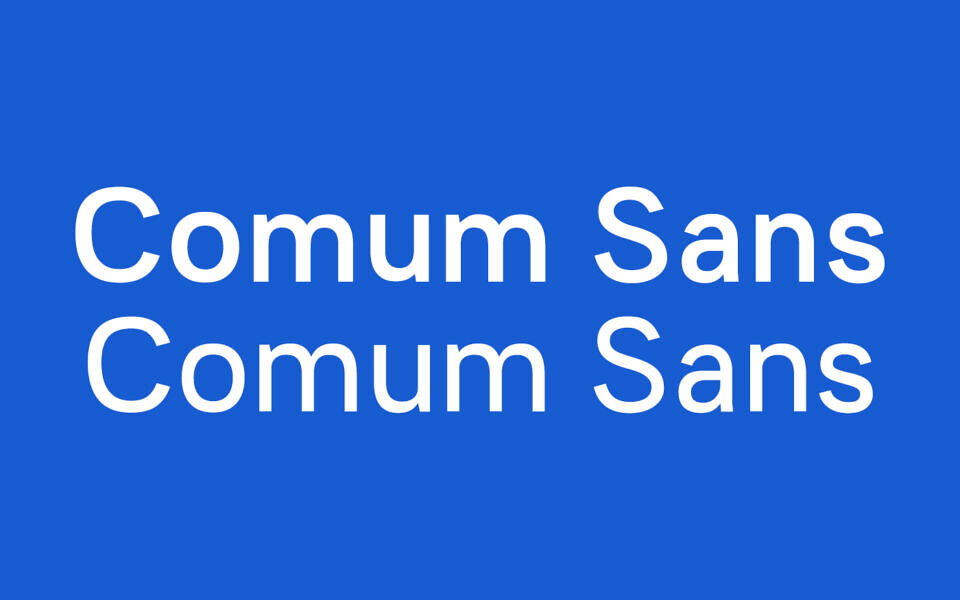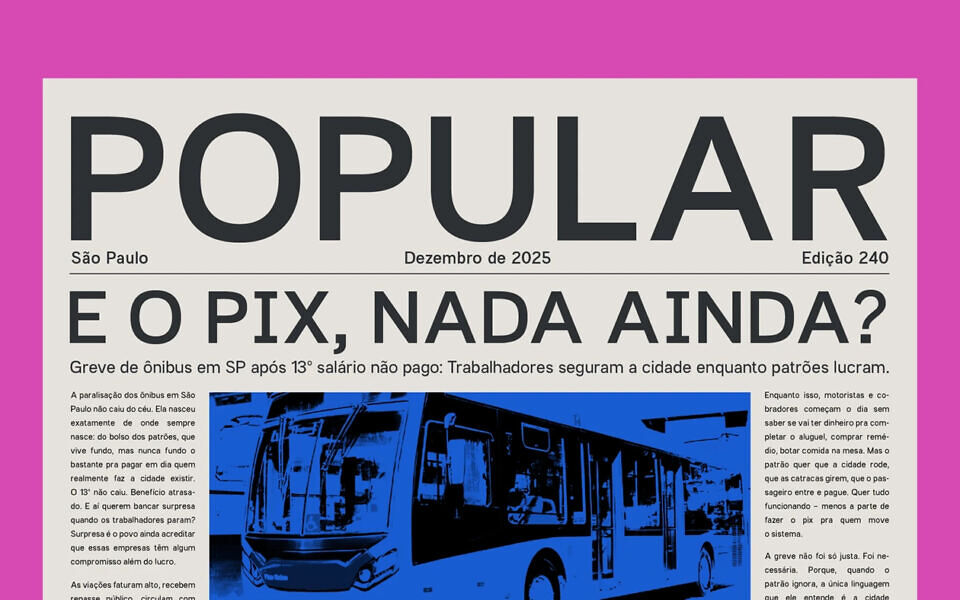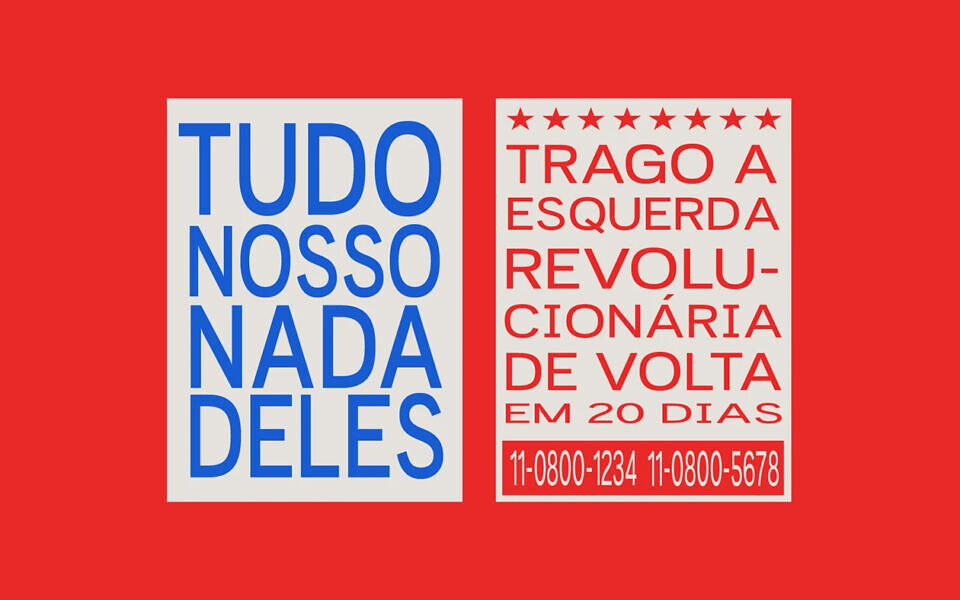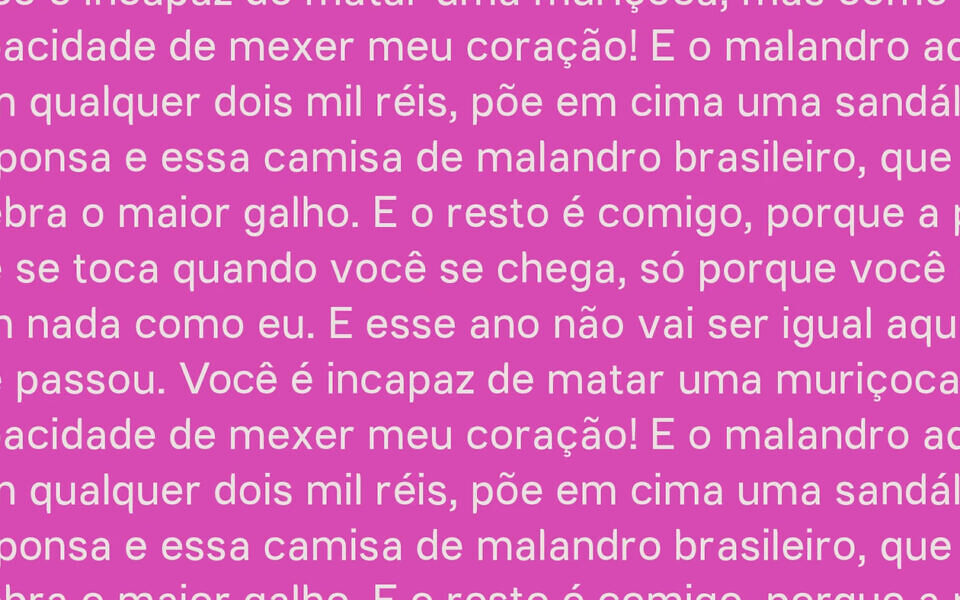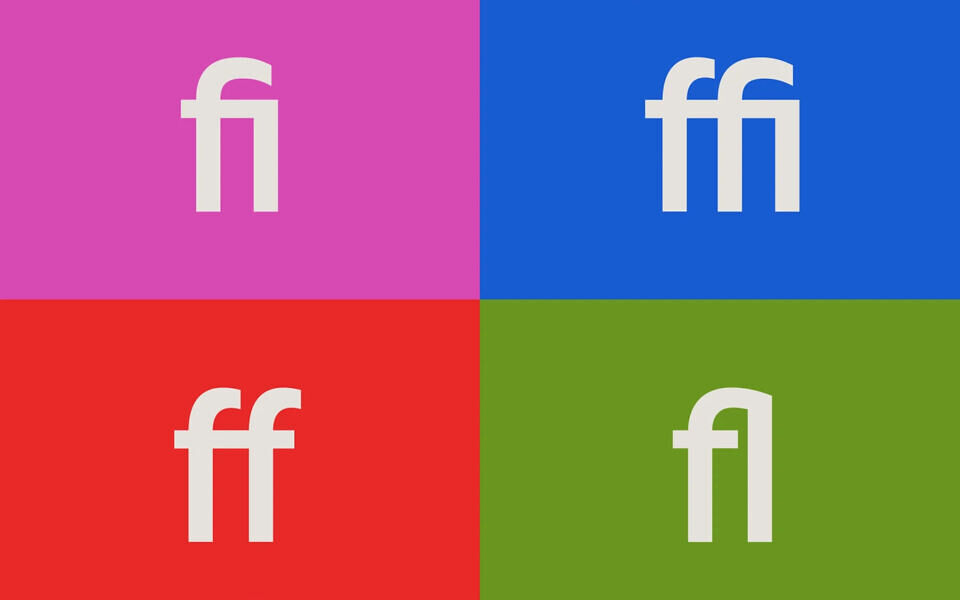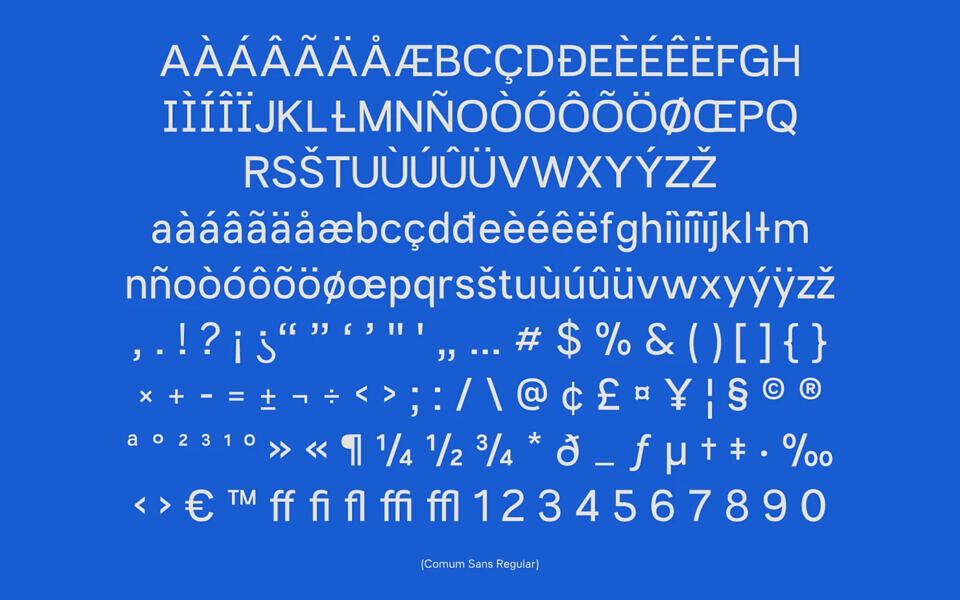
Comum Sans is a sans-serif typeface inspired by the popular printed lettering found throughout the urban landscape (especially in Latin America), such as wheatpaste posters (lambes), signs, and storefronts. While these printed typographies are integral to the city’s visual identity, they are often undervalued by academic design and the formal visual rules that dictate what is considered “correct.”
The design of Comum stems from the understanding that these printed materials are vital cultural expressions of the city. The name adopts the word “comum” (common) to represent that which is collective and accessible; for this reason, the font is distributed free of charge.
The typeface was designed for headlines and performs well in medium-length texts. Its characters are built to withstand stretching, distortion, and editing without losing their core identity.